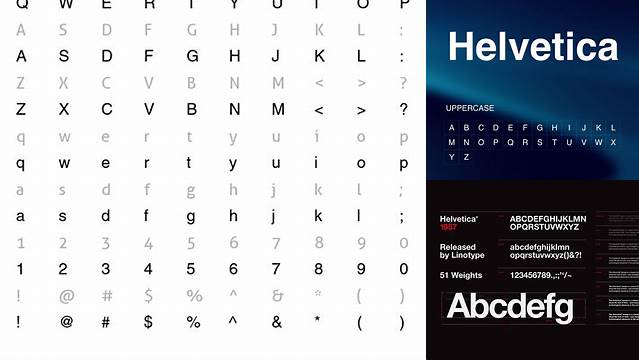
Hey guys! If you're on the hunt for a classic, clean, and versatile font, look no further than Helvetica Pressed Regular. This iconic typeface has been a go-to for designers worldwide for decades, and the best part? You can often find a free download of the regular style. In this article, we'll dive deep into everything you need to know about Helvetica Pressed Regular font, from its history and characteristics to where you can snag a free download and how to use it effectively in your projects. So, buckle up, and let's get started!
What is Helvetica Pressed Regular?
So, what exactly is Helvetica Pressed Regular font? Well, it's a member of the larger Helvetica family, which is known for its clear, sans-serif design. The 'Pressed' version, as the name suggests, has a slightly compressed or condensed feel compared to the standard Helvetica. This makes it a great choice when you need a font that's legible but also takes up a bit less horizontal space. The 'Regular' style is your bread and butter – the standard, everyday version of the font. It’s not too bold, not too light; it strikes a perfect balance for readability in a wide range of applications. Think of it as the workhorse of the Helvetica family. You'll find it in everything from corporate branding to website headers and even printed materials. The beauty of Helvetica Pressed Regular font lies in its simplicity. It’s a typeface that doesn’t scream for attention but quietly gets the job done, making it a fantastic choice for anyone looking for a clean and professional look. It's incredibly versatile, working well in both large headlines and small body text.
Because of its design, Helvetica Pressed Regular font is suitable for various purposes. It can be applied to headings, subheadings, or even body text, ensuring clarity and readability across multiple content formats. The font's neutral appearance allows it to blend smoothly with different graphic elements, thereby creating a cohesive visual experience. For branding, the font can be used in logos, business cards, and marketing materials, effectively communicating a sense of professionalism and reliability. In web design, its clear letterforms ensure a better user experience. Helvetica Pressed Regular font is also appropriate for document designs such as reports or presentations where the goal is to present information efficiently. Moreover, designers often use this font for posters, flyers, and social media graphics where legibility is of utmost importance. This font offers simplicity and versatility, contributing to the clarity and effectiveness of a wide variety of designs. The clean and straightforward look of Helvetica Pressed Regular font helps convey a sense of order and professionalism, making it a perfect choice for different uses.
Decoding the Helvetica Family: A Deep Dive
To truly understand Helvetica Pressed Regular, let's take a step back and explore the wider Helvetica family. Created in Switzerland in 1957 by Max Miedinger, Helvetica was initially known as 'Neue Haas Grotesk.' However, it was later renamed Helvetica, derived from the Latin name for Switzerland, 'Helvetia.' The font was designed to be a neutral and universal typeface, and it quickly gained popularity for its clean lines and excellent legibility. Over the years, the Helvetica family has expanded to include various weights and styles, from light and ultra-light to bold and black, and from regular to condensed and extended. Each style caters to different design needs and applications. The family's broad range allows designers to maintain consistency across various design projects while still having flexibility in expressing different moods and tones. Helvetica Pressed Regular fits into this family as a condensed version, offering the same inherent clarity but with a narrower footprint. It's a perfect choice when space is at a premium, like in headlines or when you need to fit more text on a line. The beauty of the Helvetica family is its adaptability. It can be used in formal and informal contexts. This is made possible due to its simple design, which makes it appropriate for a variety of uses. From corporate branding to artistic expression, Helvetica Pressed Regular and its extended family provide endless design possibilities.
The Design Philosophy Behind Helvetica Pressed Regular
The design of Helvetica Pressed Regular font is rooted in a philosophy of simplicity, clarity, and neutrality. The font's creator, Max Miedinger, aimed to design a typeface that was free from unnecessary embellishments and could be easily read in any situation. The sans-serif design means that the letters don't have decorative strokes (serifs), which results in clean, uncluttered letterforms. The compressed or 'pressed' style gives the font a distinct character, making it suitable for headlines and other areas where space is a constraint. The overall design allows for quick and easy reading. This makes the font accessible across many different media, from print to screen. The philosophy extends beyond the visual appearance of the font; it is also about the message the font conveys. Because of its neutral appearance, Helvetica Pressed Regular doesn't project any specific mood or emotion. This allows designers to use it for conveying a wide variety of messages without the font interfering. This neutrality is a core element of its appeal, making it a versatile tool for any design project. The font is designed to be a silent communicator. It allows other design elements and the text to shine through. The straightforward design ensures it functions as a perfect communication tool. The design has a lot of character, which makes it suitable for different uses.